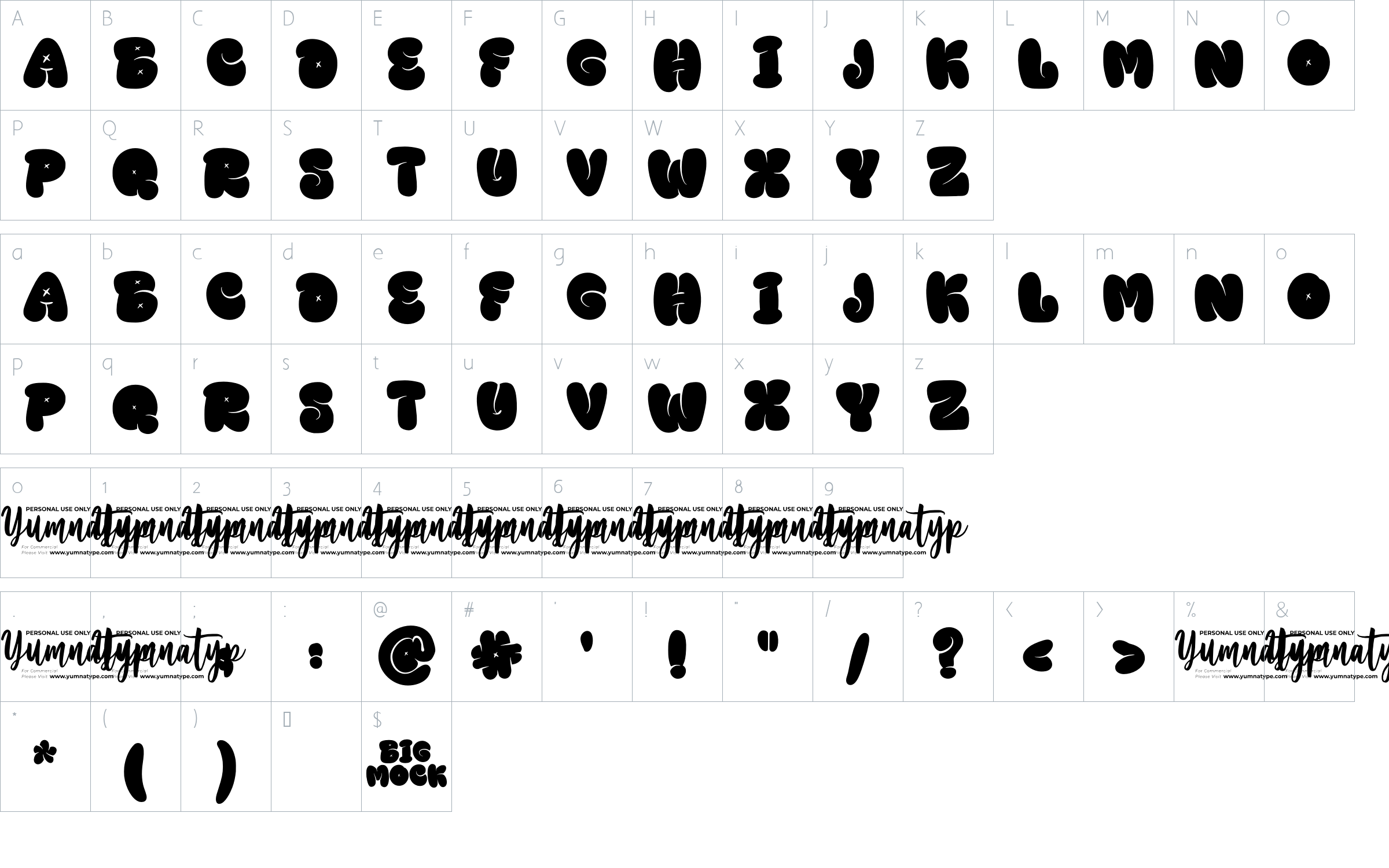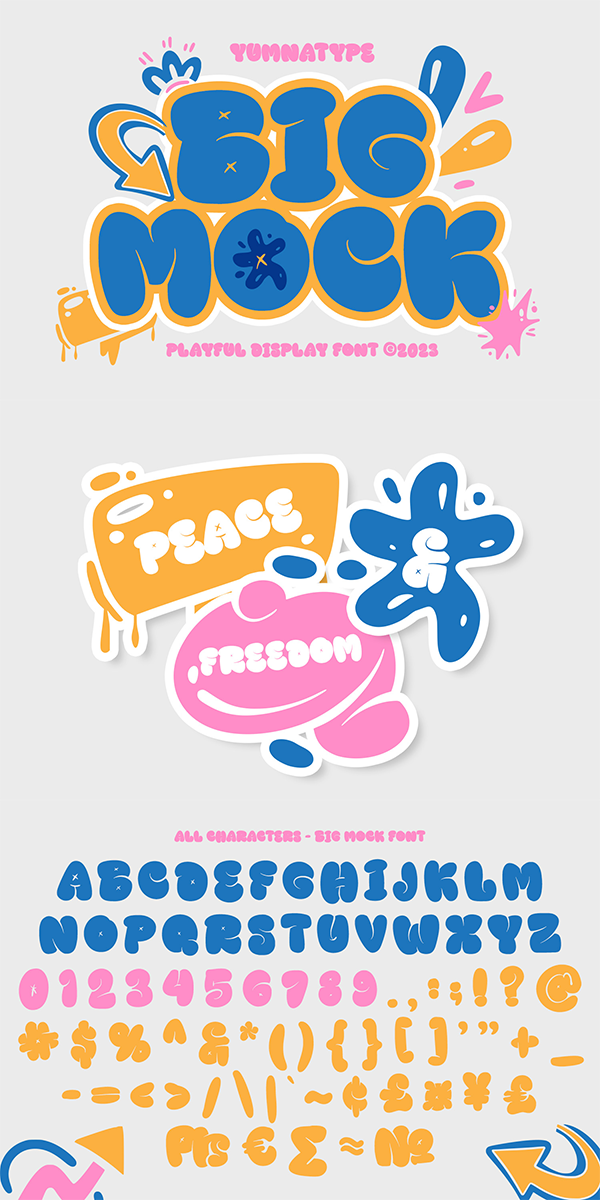
Big Mock Font
About Big Mock
Big Mock is a display font with strong characters and unique styles to assist you to pop up your messages easily. It exists in uppercases and thick weights to show bold, prominent displays. The similar letters’ proportions and the low contrasts will affect the legibility rates. You can use such a font for big text sizes to be greatly legible. Big Mock gives you an extra clipart as a bonus. You can also make use of the available features here.
Big Mock fits best for various design projects, such as brandings, posters, banners, headings, magazine covers, quotes, printed products, merchandise, social media, etc. Find out more ways to use this font by taking a look at the font preview.